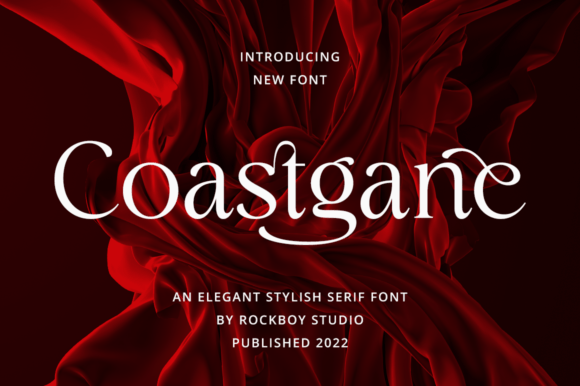
Coastgane Font: Elevate Your Designs with Elegance and Sophistication
When it comes to selecting the perfect font for your design project, the options can be overwhelming. However, if you’re looking for a font that exudes elegance, sophistication, and versatility, look no further than Coastgane. This stunning serif font has been making waves in the design community, and for good reason. In this article, we’ll dive into the world of Coastgane, exploring its unique features, benefits, and uses, as well as provide tips on how to make the most of this incredible font.
What is Coastgane Font?
Coastgane is an elegant and distinct serif font, carefully crafted to provide a neat and simple style that’s perfect for a wide variety of designs. Its classic serif structure, combined with its modern flair, makes it an excellent choice for designers looking to add a touch of sophistication to their work. Whether you’re creating a logo, heading, or body text, Coastgane is sure to make a lasting impression.
Key Features of Coastgane Font
- Elegant Serif Structure: Coastgane boasts a traditional serif design, complete with subtle flair and refined lines.
- Simple yet Distinct: The font’s simplicity is what makes it stand out, providing a clean and uncluttered look that’s perfect for designs where clarity is key.
- Versatile: Coastgane is suitable for a wide range of designs, from logos and headings to body text and more.
- Easy to Read: The font’s clear and concise structure makes it easy on the eyes, ensuring your message is conveyed with ease.
How to Use Coastgane Font
Coastgane’s versatility is one of its greatest strengths, making it suitable for a wide range of design applications. Here are just a few examples of how you can use Coastgane to elevate your designs:
- Logos and Branding: Create a lasting impression with Coastgane’s elegant and sophisticated design, perfect for logos, business cards, and other branding materials.
- Headings and Titles: Add a touch of class to your headings and titles with Coastgane’s refined serif structure, ideal for use in magazines, newspapers, and online publications.
- Body Text: Keep your readers engaged with Coastgane’s clear and concise design, perfect for use in books, articles, and website content.
- Advertising and Marketing: Make your advertising and marketing materials stand out with Coastgane’s unique and eye-catching design.
Tips for Getting the Most out of Coastgane
To ensure you get the most out of Coastgane, here are a few tips to keep in mind:
- Experiment with Font Sizes: Coastgane looks great in a variety of font sizes, so don’t be afraid to experiment to find the perfect size for your design.
- Pair with Other Fonts: Coastgane pairs well with a range of other fonts, so try combining it with sans-serif fonts for a striking contrast.
- Adjust Line Spacing: To ensure maximum readability, adjust the line spacing to create a clear and uncluttered design.
- Use in Combination with Images: Coastgane looks great when used in combination with images, so try incorporating it into your design to add an extra layer of depth.
Coastgane Font vs. Other Fonts
So, how does Coastgane compare to other fonts on the market? Here are a few key differences:
- Unique Design: Coastgane’s elegant serif structure and simple design make it stand out from more ornate fonts.
- Versatility: Unlike some fonts that are limited to specific design applications, Coastgane is suitable for a wide range of uses.
- Readability: Coastgane’s clear and concise design makes it easier to read than some other fonts, particularly in smaller font sizes.
In conclusion, Coastgane is an exceptional font that offers a unique combination of elegance, sophistication, and versatility. Whether you’re a designer, marketer, or simply someone looking to elevate their typography, Coastgane is an excellent choice. Its neat and simple style, combined with its classic serif structure, make it perfect for a wide range of designs. So why not give Coastgane a try and see the difference it can make in your designs?